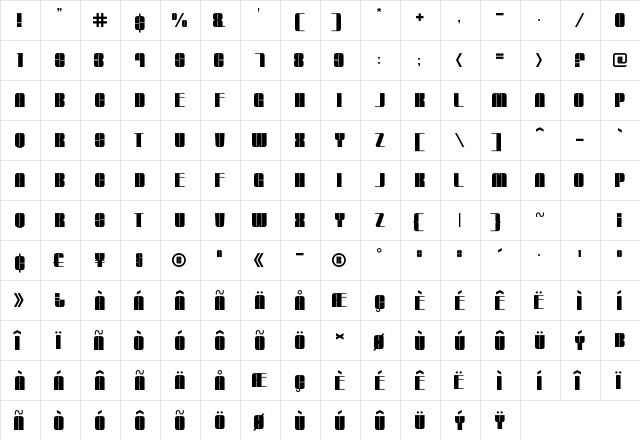
SPORTUNE Regular
| Designer | Raditya Putra Pratama |
Design Context for SPORTUNE Typeface
SPORTUNE brings high-energy athletic personality to the page — its confident, muscular forms are built for impact.
A natural choice for gym brands, fantasy sports, jersey lettering, and action-driven headlines.
Font Pairing: Use alongside a condensed or geometric sans for supporting copy — keep the pairing bold, functional, and free of ornament.
Pro Tip: Use SPORTUNE in all-caps headlines where its athletic energy can fully express itself. Pair with a solid, simple sans for supporting text.